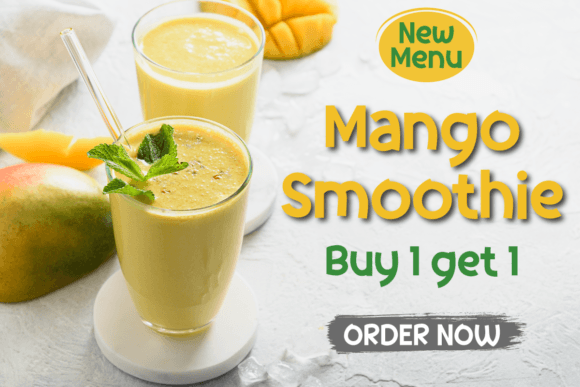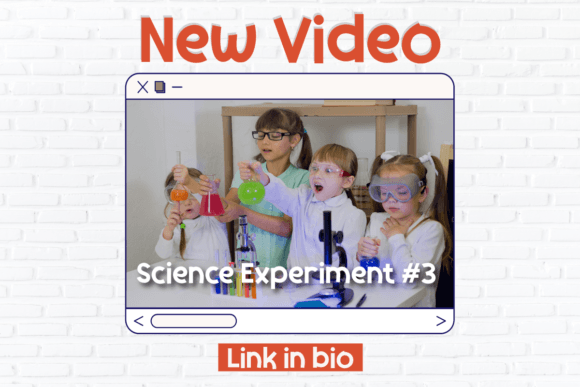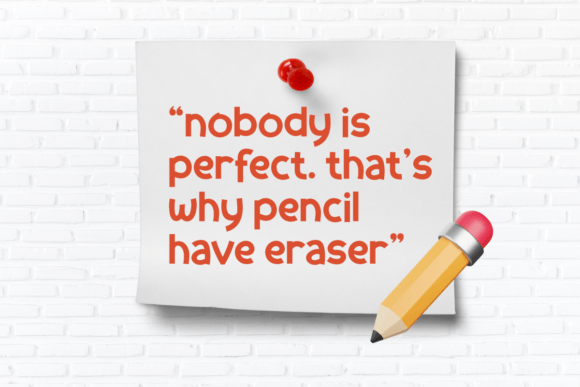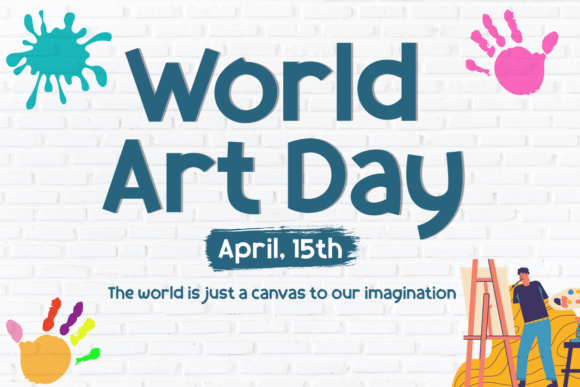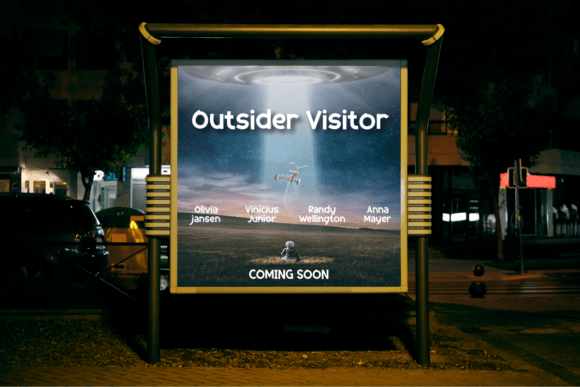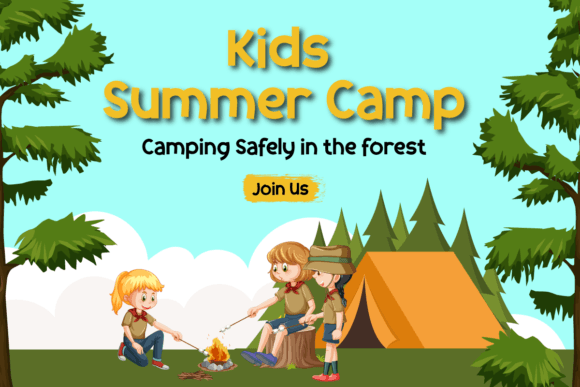
Introduction to Khakoy Font
Have you ever been stuck on a creative project, struggling to find the perfect font to convey the playful vibe you’re going for? I know I have. But then, I stumbled upon the Khakoy Font – a game-changer for designers looking to add a dash of whimsy to their work. With its lively and distinct characters, this font is the ultimate design resource for projects that demand a touch of fun and a pinch of mischief.
Whether you’re working on a cheerful poster, a charming children’s book, or any other creative project that requires a high-quality, transparent background, Khakoy Font is here to help. And the best part? It’s available for free download, making it an invaluable addition to any designer’s toolkit.
Key Features of Khakoy Font
- Features a unique, hand-drawn style with a transparent background
- Includes a range of characters and glyphs to support various languages
- Available in a single size, optimized for clear readability at 300 DPI resolution
- Perfect for designers and artists looking for a distinctive, high-quality font for their design work
Honest Review: Khakoy Font
I recently stumbled upon the Khakoy Font while searching for a unique design resource for a creative project. I was immediately drawn to its quirky, hand-drawn feel that’s perfect for adding a touch of personality to your designs.
Here are some things that work well with the Khakoy Font:
- ✨ Highly customizable: The font comes in a range of styles and weights, making it easy to find the perfect fit for your design.
- ✨ High quality: The font is crisp and clear, even at larger sizes, making it perfect for headings and titles.
- ⚠️ Limited language support: The font only supports a limited range of languages, which may be a concern for designers working on international projects.
- ⚠️ Not ideal for body text: The font’s quirky feel may not be suitable for large blocks of body text, where readability is key.
Overall, I’m impressed with the Khakoy Font. While it may not be perfect for every design project, it’s a great resource for designers looking to add a touch of personality to their work. With its high quality and easy-to-use interface, it’s definitely worth checking out.
Introduction to Khakoy Font
The Khakoy Font is a high-quality design resource ideal for creative projects requiring a unique and eye-catching font. It’s available for free download, making it an accessible choice for designers of all levels.
Tips for Getting the Most Out of Khakoy Font
To get the most out of the Khakoy Font, use it on a transparent background to create a seamless and modern design. Experiment with different font sizes and colors to achieve the desired effect.
The Khakoy Font is ideal for creating eye-catching graphics, social media posts, and presentations. It’s also suitable for designing logos, business cards, and other marketing materials.
Great Vibes is a modern, cursive font that’s perfect for creative projects that require a fun and playful touch. It’s ideal for use in posters, social media graphics, and other design elements where a carefree, handwritten feel is desired.
Compared to Khakoy Font, Great Vibes offers a more relaxed and casual look, making it suitable for projects that require a lighthearted tone. It’s available for free download, making it an excellent design resource for designers looking for a high-quality font.
Does the Khakoy Font include a transparent background option?
Yes, the Khakoy Font includes a transparent background option, making it easy to use with images or other design elements. To access the transparent background, simply select the font in your design software and adjust the background settings accordingly. This feature is particularly useful for creating designs with a seamless, layered look.